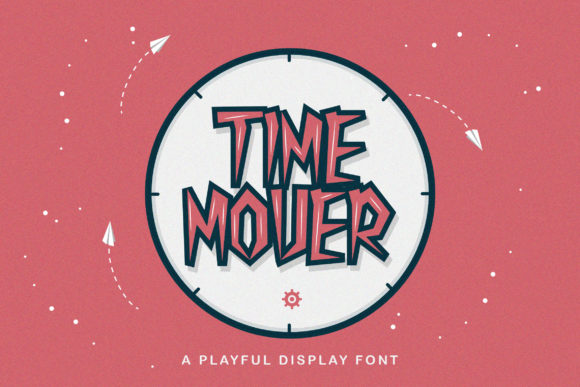
Time Mover Font
Step into a realm of the unknown with Time Mover Font, an extraordinary display font that will transport your designs to the edge of the universe and beyond. Crafted by the ingenious minds at StringLabs, this font exudes an otherworldly charm that will leave you spellbound.
Let Time Mover Font ignite your imagination as it captivates viewers with its bold and enigmatic presence. Its sharp angles and captivating curves evoke a sense of mystery and allure, making it the perfect choice for designs that demand attention. Whether you're crafting posters for an upcoming horror movie or creating social media posts that will send shivers down their spines, Time Mover Font is your passport to the extraordinary.
With Time Mover Font, you're not just downloading a font—you're embarking on an adventure. Its unique and captivating nature will unlock endless possibilities, allowing you to create designs that transcend the ordinary and leave an everlasting impression. Let Time Mover Font be your guide into a realm where creativity knows no bounds, and where your designs will become the stuff of legends.